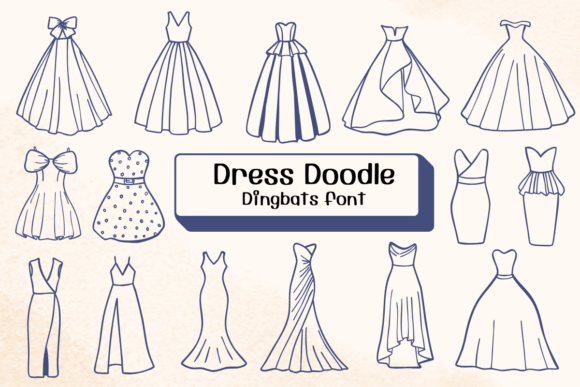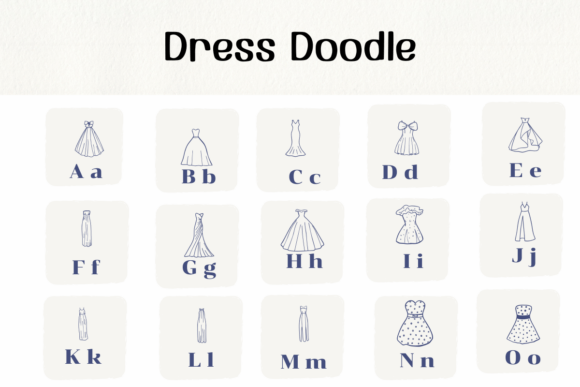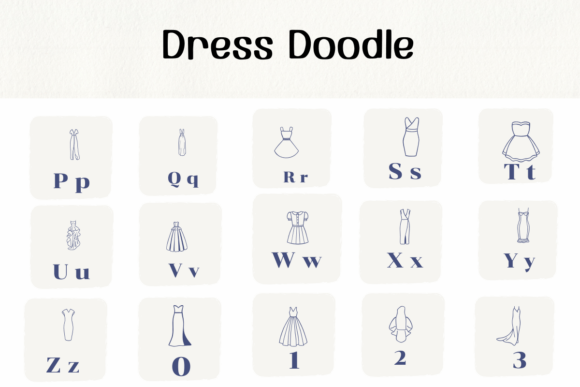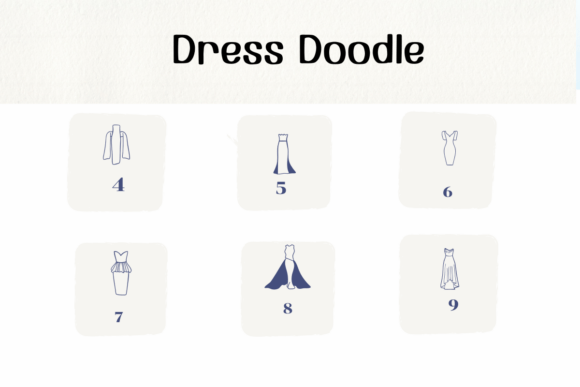
Dress Doodle Font Font
About the Dress Doodle Font Font
Meet Dress Doodle Font Font, a stunning font that brings a touch of elegance and professionalism to any design. Dress Doodle is a dingbats font with a fashionable style. This font can enhance your creative projects such as wedding invitations, DIY, crafts, decorations, logos, and many other creative ideas.
Dress Doodle’s playful, hand-drawn aesthetic makes it ideal for projects requiring a touch of whimsical charm. It excels in headlines, logos, short text blocks on packaging, and social media graphics. However, its decorative nature limits its suitability for body text or UI elements where readability is paramount. Avoid using it for lengthy paragraphs or situations demanding high legibility.
Consider pairing Dress Doodle with a clean sans-serif like Open Sans for a balanced contrast, or a classic serif like Garamond for a touch of sophistication. For a more playful feel, a rounded geometric sans-serif like Lato would work well.
The font’s overall personality is lighthearted and approachable, making it a strong choice for brands targeting a younger demographic or projects emphasizing fun and creativity.